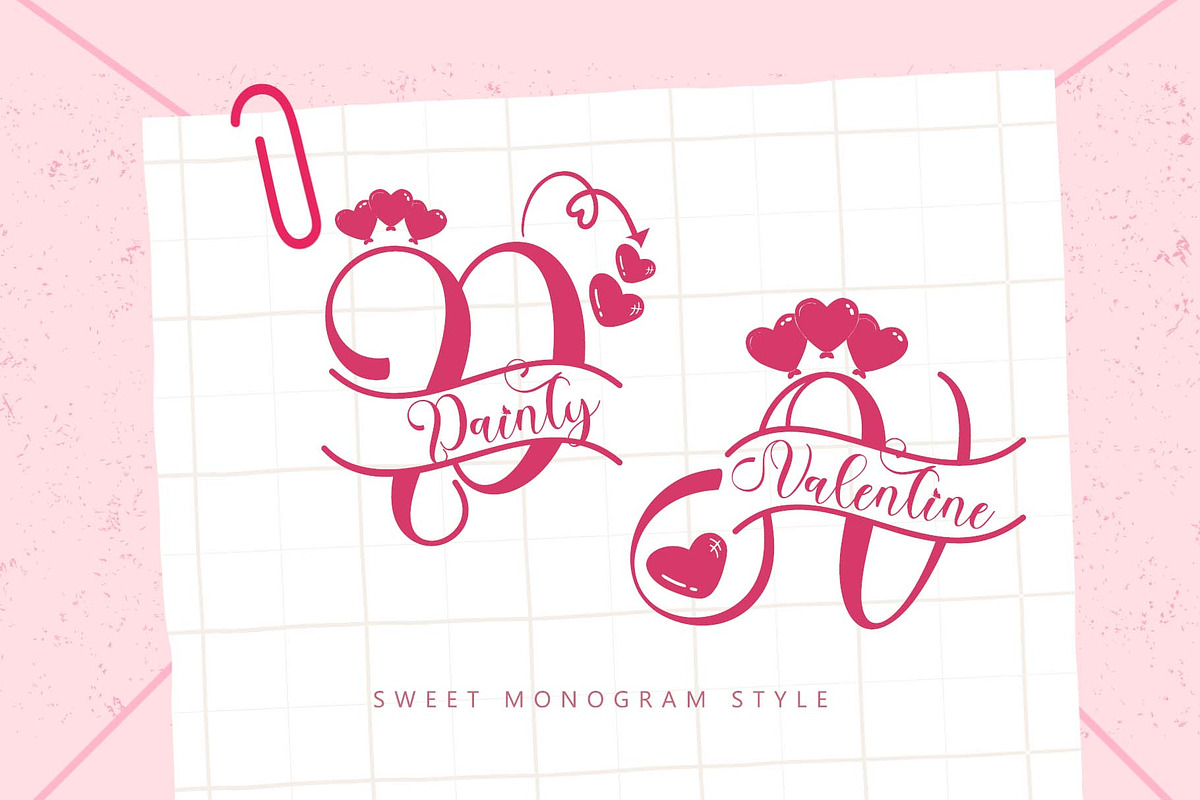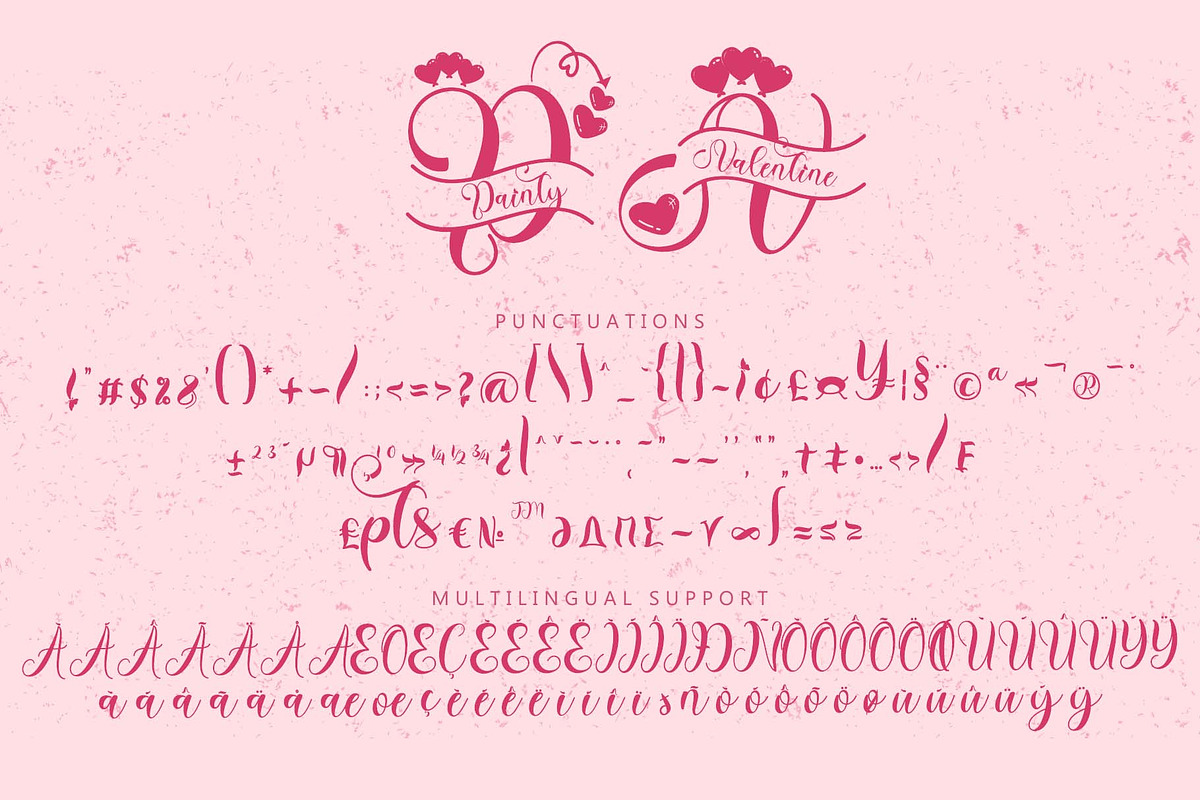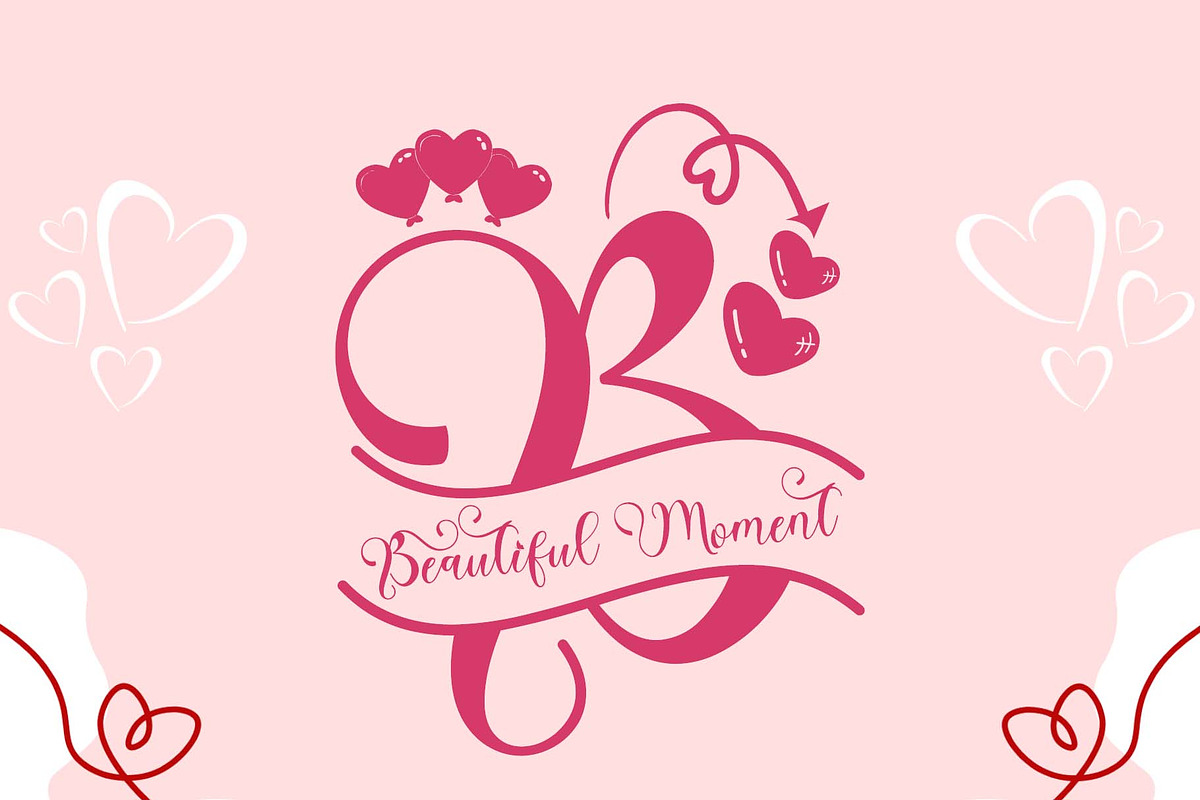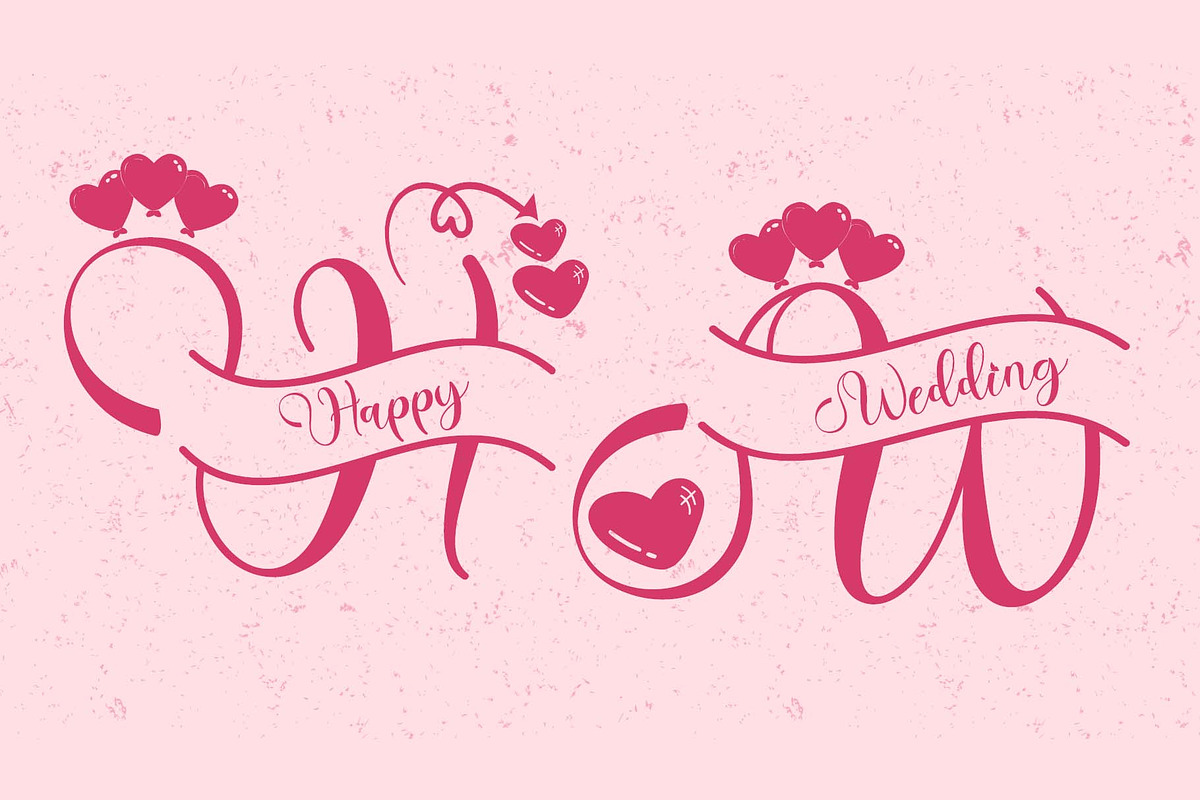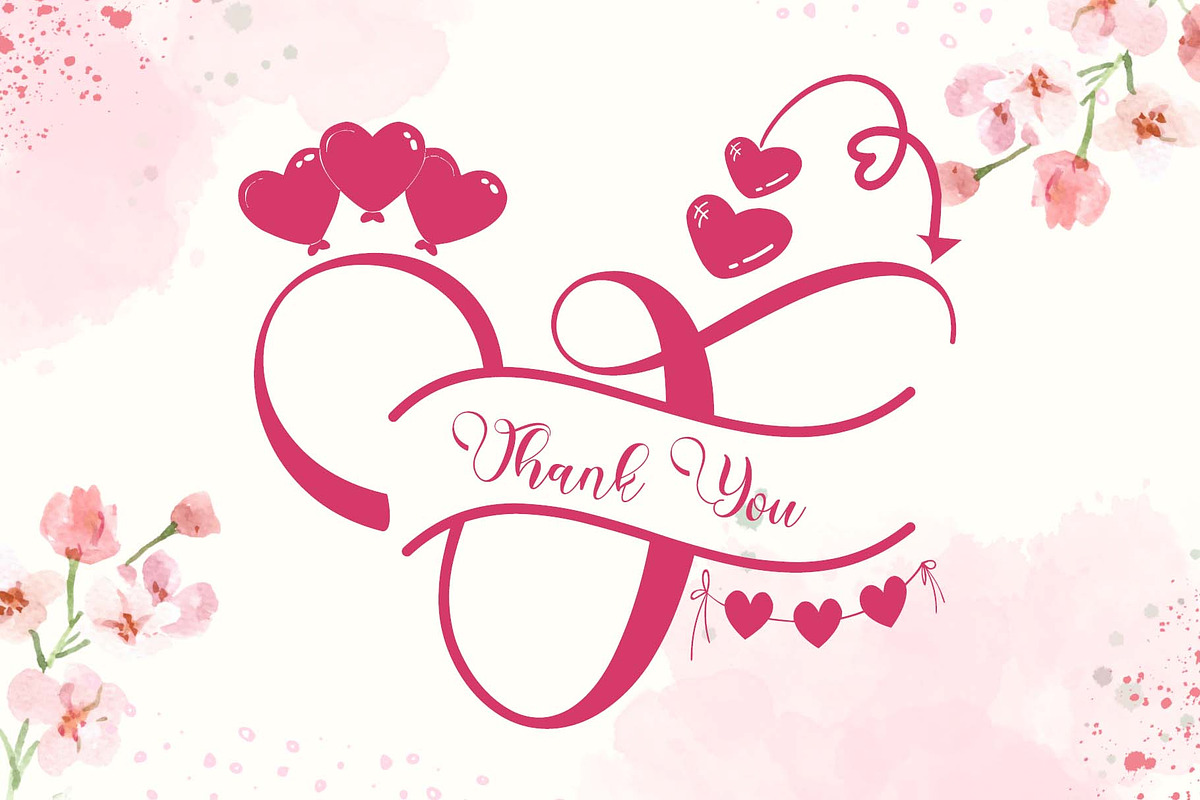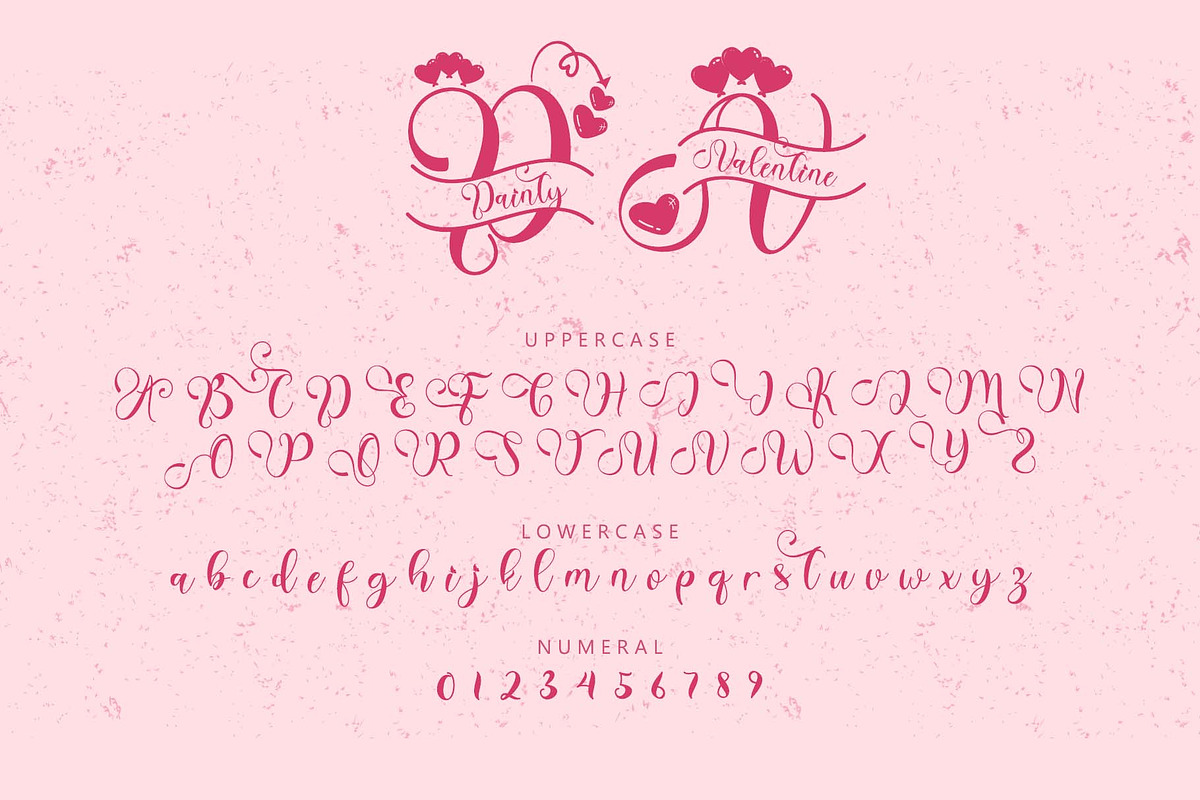
Dainty Valentine Monogram
"Dainty Valentine Monogram" is a beautiful monogram font. This font is equipped with monograms, uppercase, lowercase, numerals, punctuations and multilingual support. It is very suitable for use for valentine, winter, easter, wedding, invitations, banners, branding, stickers, posters, prints and others.